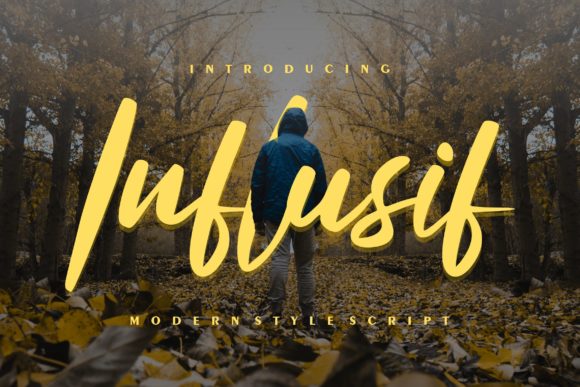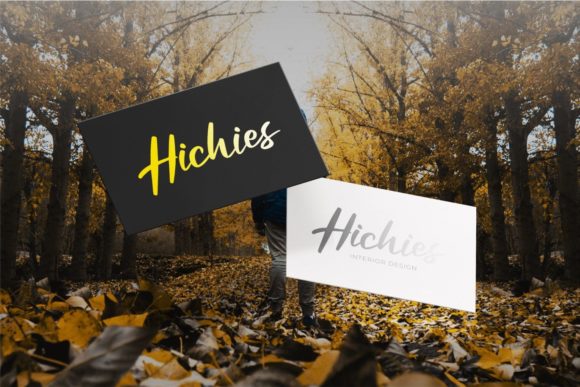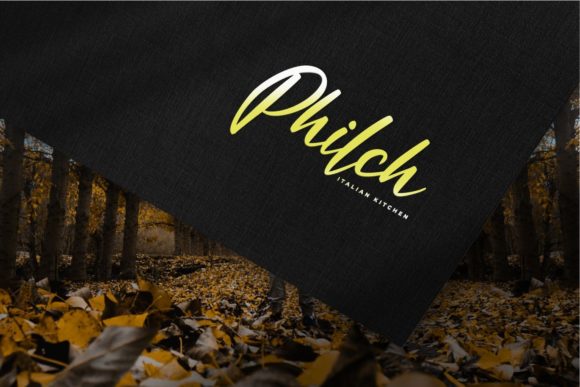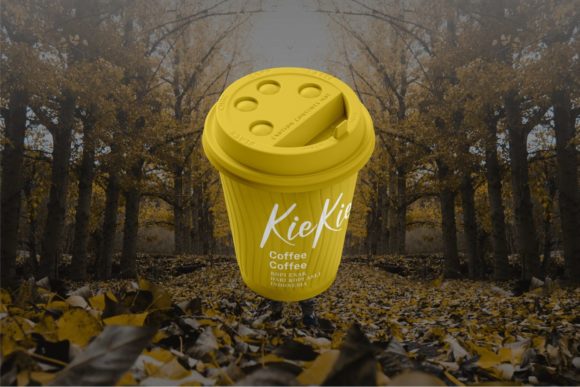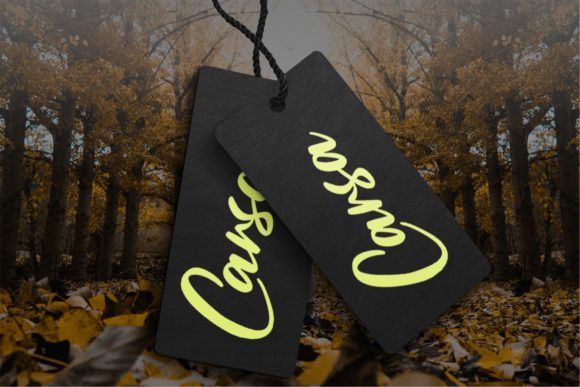
About Influsif Font
Influsif is a delicate and elegant handwritten font. Its distinct and well balanced letters make this font a masterpiece. Fall in love with its incredibly versatile style and use it to create spectacular designs!